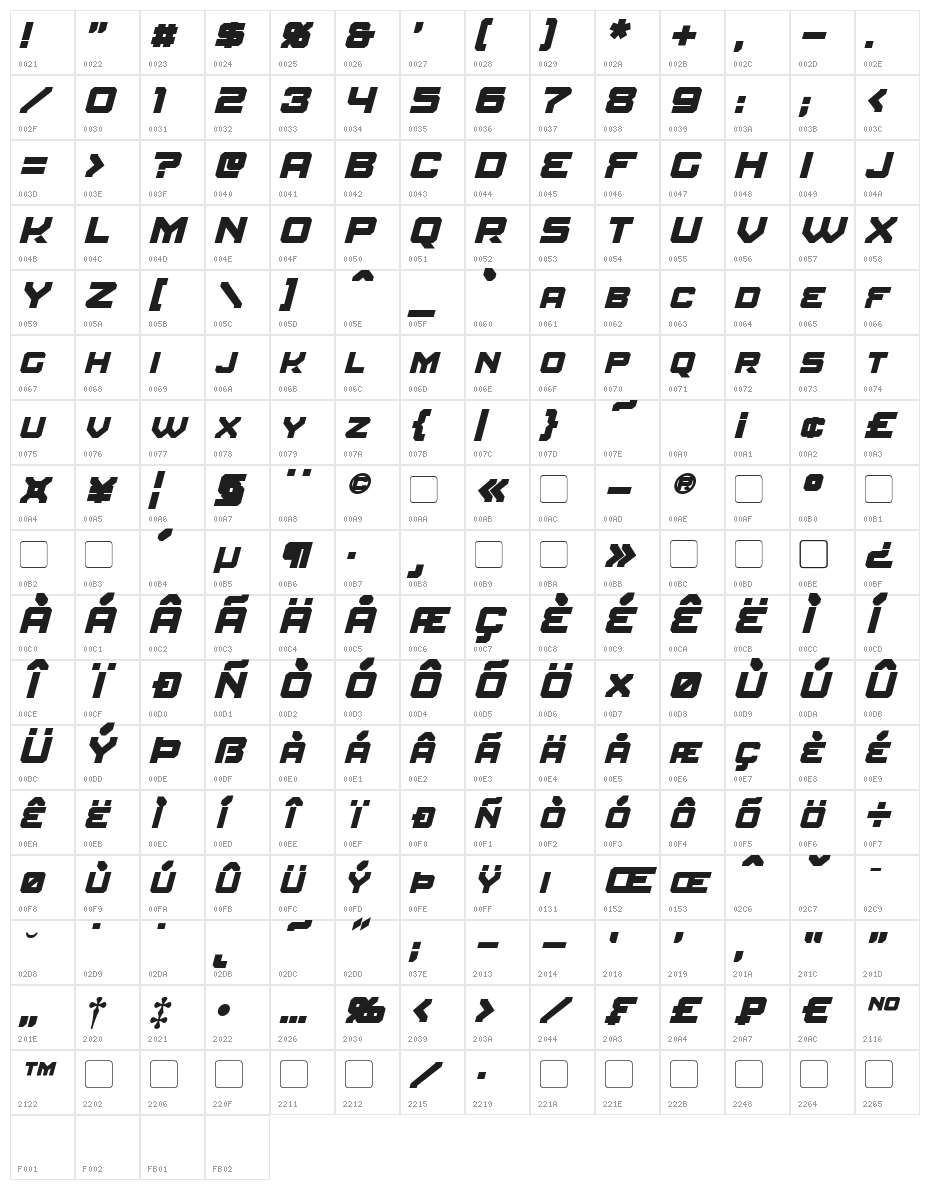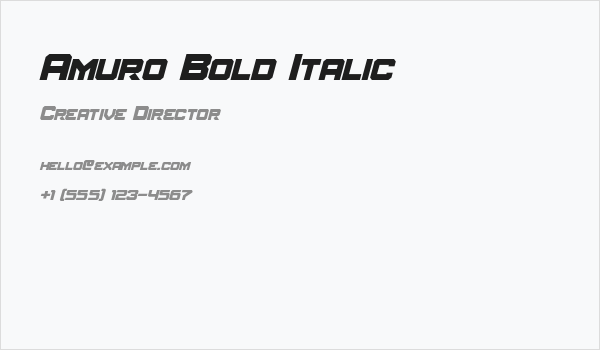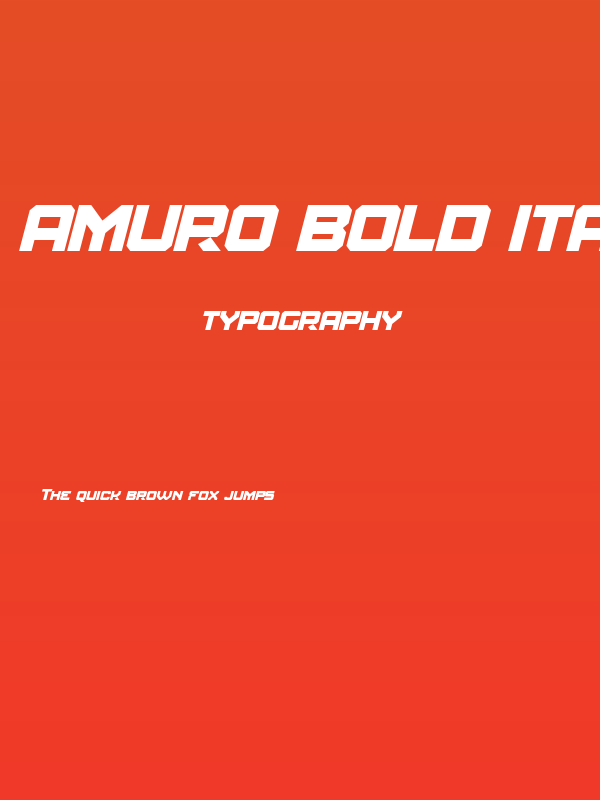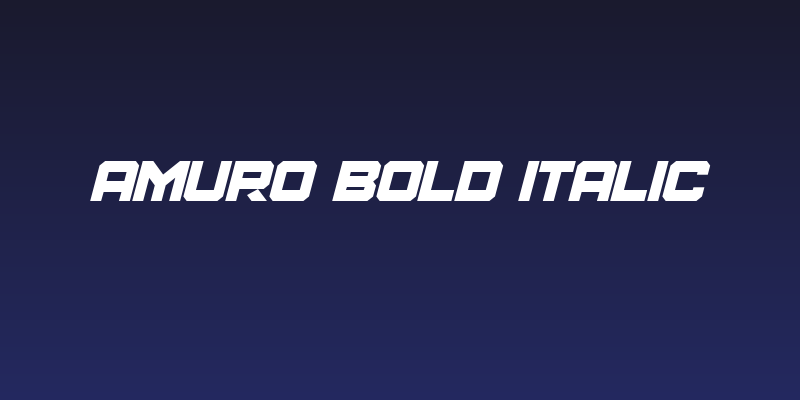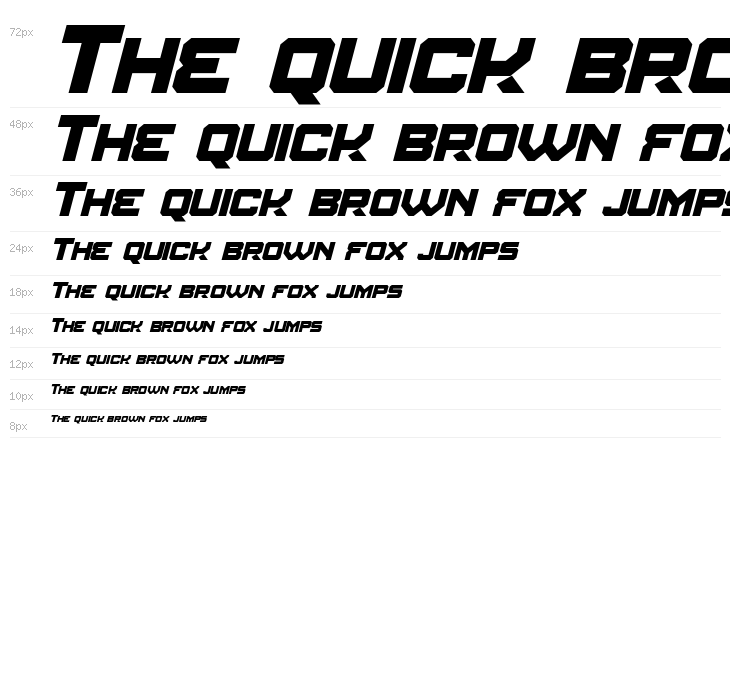
Amuro Bold Italic Font
Amuro Bold Italic Description
This font features a bold and italicized style with a distinctly modern and futuristic appearance. The characters are angular and geometric, with sharp edges and a dynamic slant that gives a sense of motion and energy. The uppercase and lowercase letters maintain a consistent style, with a strong emphasis on horizontal and diagonal lines. The numerals and special characters follow the same design principles, ensuring uniformity across all glyphs. This font's boldness and italic nature make it stand out, suitable for projects that require a strong visual impact.